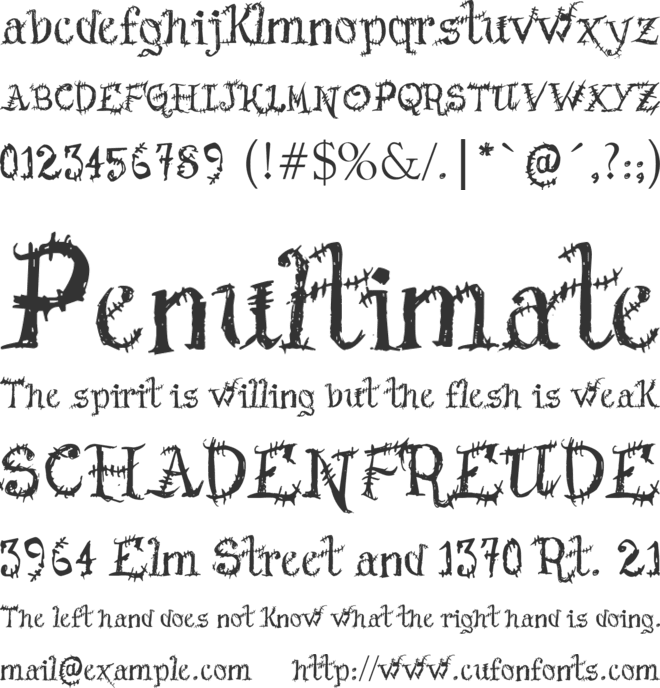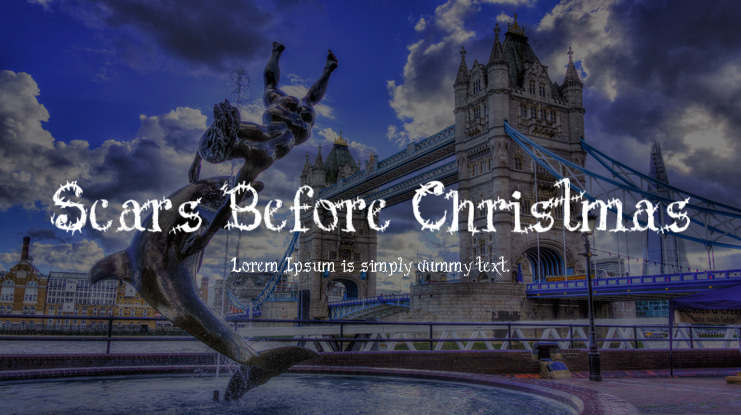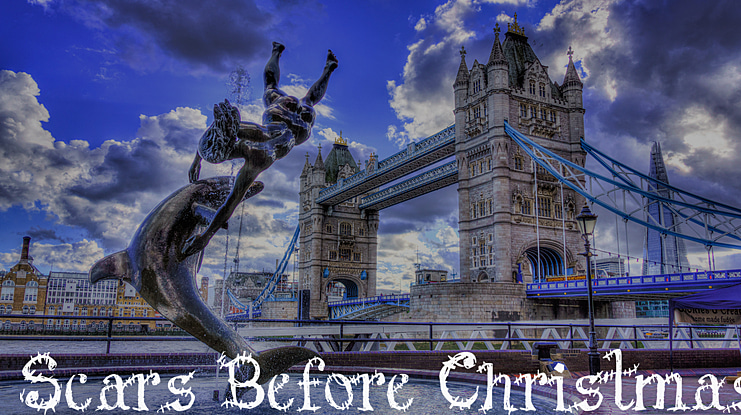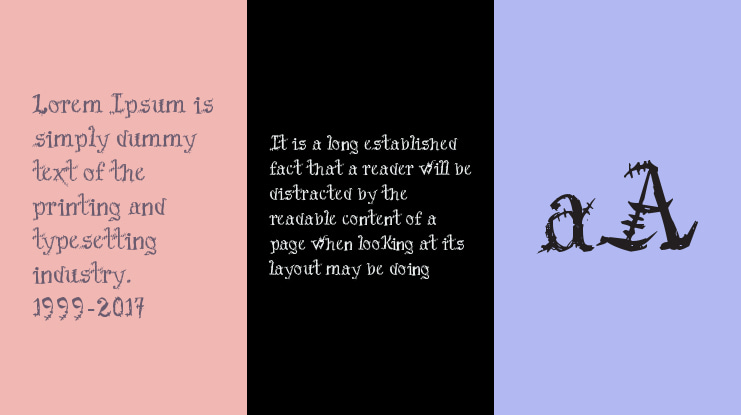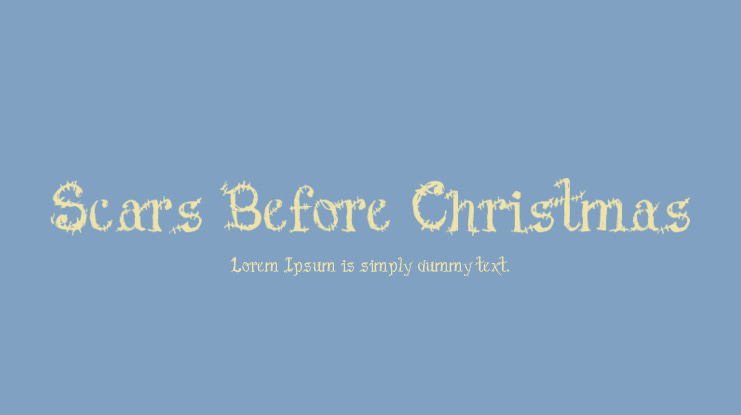
Scars Before Christmas Font
I drew this font yesterday and today,
and now, after 2 hour of work let me show you this font
Maybe it remains you at Jack Skellington